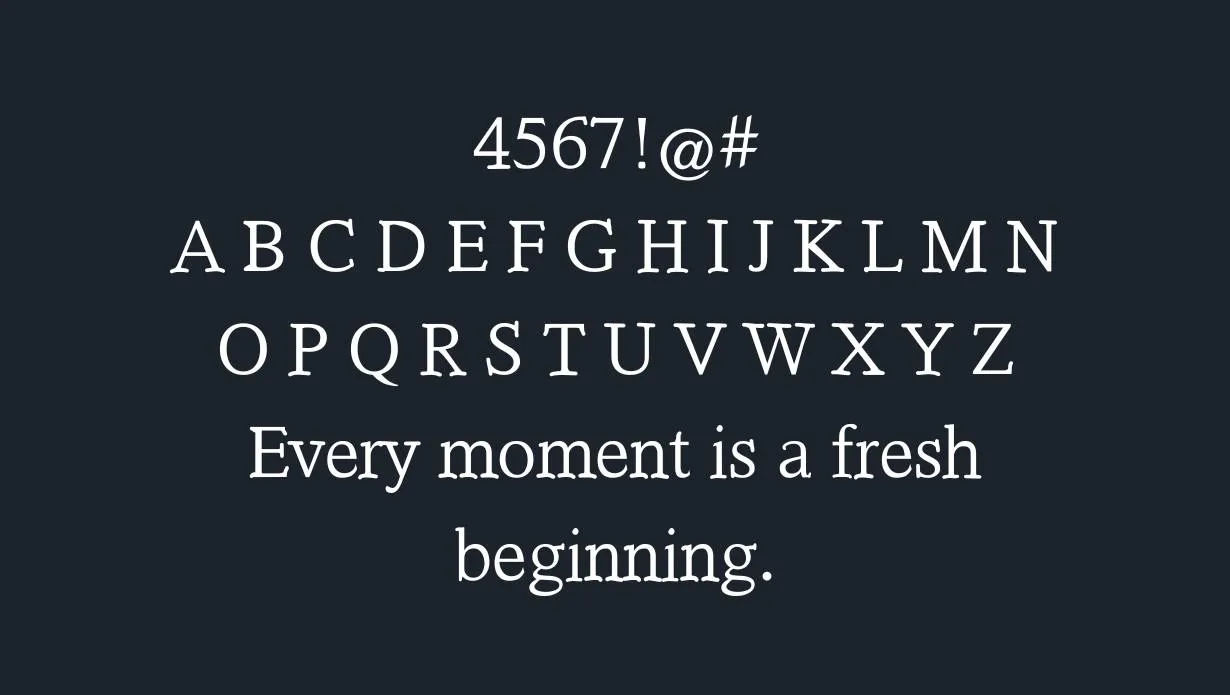
Tipografia Vittoria Srls designed this elegant typeface. A lovely style has more than a hundred characters set. The Touch Font consists of some unique elements such as punctuation, digits, uppercase letters, and lowercase letters as well.
The font is an elegant serif typeface that has the ability to attract an audience. The beon font can be employed to craft exceptional designs with great impact.
Just because the font has unique and stylish glyphs, you can make your project more attractive. There are several ways in which you can use this amazing typeface. Use its advanced features to create new designs for business purposes.